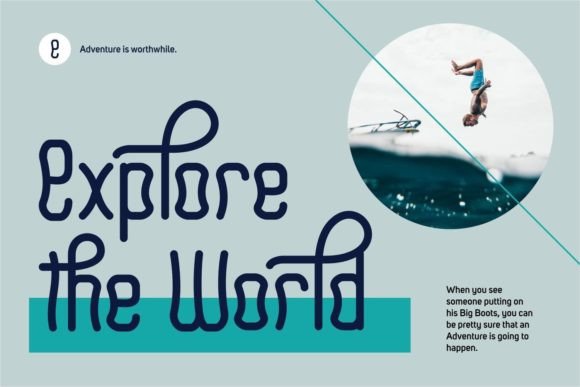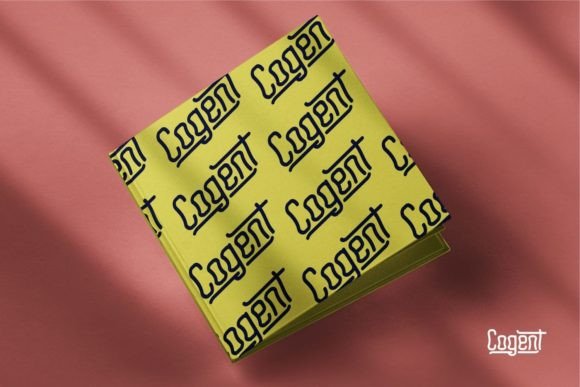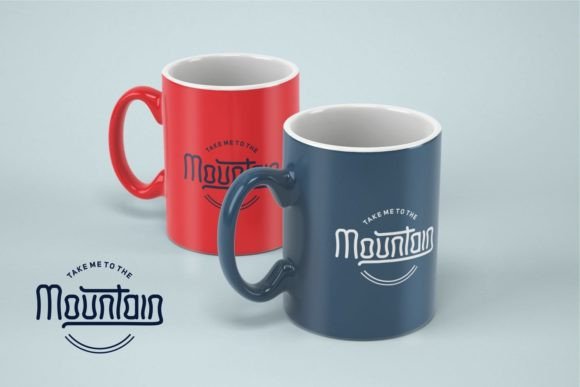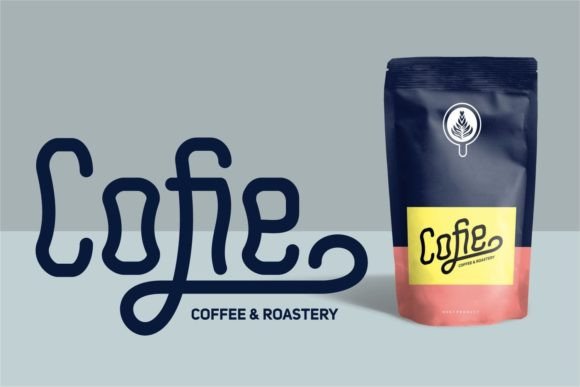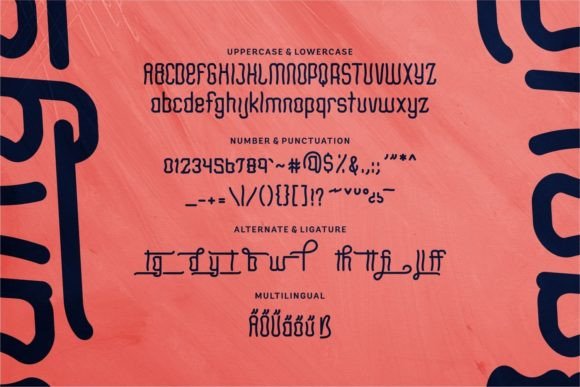
That’s where Banyol Font comes in – a wavy, whimsical, and uniquely shaped display font that’s sure to elevate each of your creations. Whether you’re designing a logo, crafting a poster, or building a brand, Banyol Font is the perfect addition to your toolkit. Its trendy and stylish aesthetic makes it a valuable asset for designers looking to add a touch of sophistication to their work.
With its PUA encoding, you can easily access all of the amazing glyphs and ligatures that Banyol Font has to offer, giving you endless possibilities for creative expression.
Banyol Font Key Features
- Font Family: Banyol is a sans-serif font family, designed to provide a clean and modern look.
- Unique Characteristics: Banyol font features a unique blend of geometric and organic elements, resulting in a distinctive and modern aesthetic.
Banyol Font Review
✨ **What works well:** Banyol is a beautiful, elegant font that’s perfect for creating a sophisticated and refined look. It’s especially great for use in branding, logos, and titles. The font’s rounded edges and smooth curves give it a friendly and approachable feel, making it suitable for a wide range of applications.
✨ Another strength of Banyol is its versatility. It’s available in a range of weights, from light to bold, which allows designers to create a consistent visual identity across different mediums. The font also has a wide x-height, making it highly legible even at smaller font sizes.
⚠️ **Limitations:** While Banyol is an excellent font, it may not be the best choice for highly technical or formal documents. The font’s rounded edges can make it difficult to read in certain situations, such as in very small font sizes or when using a low-resolution display.
⚠️ Additionally, Banyol may not be the most creative or experimental font. It’s a classic, timeless design that’s sure to please, but it may not push the boundaries of typography or stand out in a crowded market.
Overall, Banyol is a solid, reliable font that’s perfect for designers who want to create a polished and professional look. While it may have some limitations, it’s a great choice for a wide range of applications.
- Great for branding, logos, and titles
- Versatile with a range of weights
- Highly legible even at small font sizes
- May not be the best choice for technical or formal documents
- May not be the most creative or experimental font
Getting the Most Out of Banyol Font
To get the most out of Banyol Font, use it in combination with other design elements, such as images, colors, and shapes. Experiment with different font sizes, colors, and styles to create visually appealing designs. Use the Banyol Font in headings and subheadings to create a clear hierarchy of information.
The Banyol Font is suitable for various design applications, including:
- Brand identity and logos
- Print design and publishing